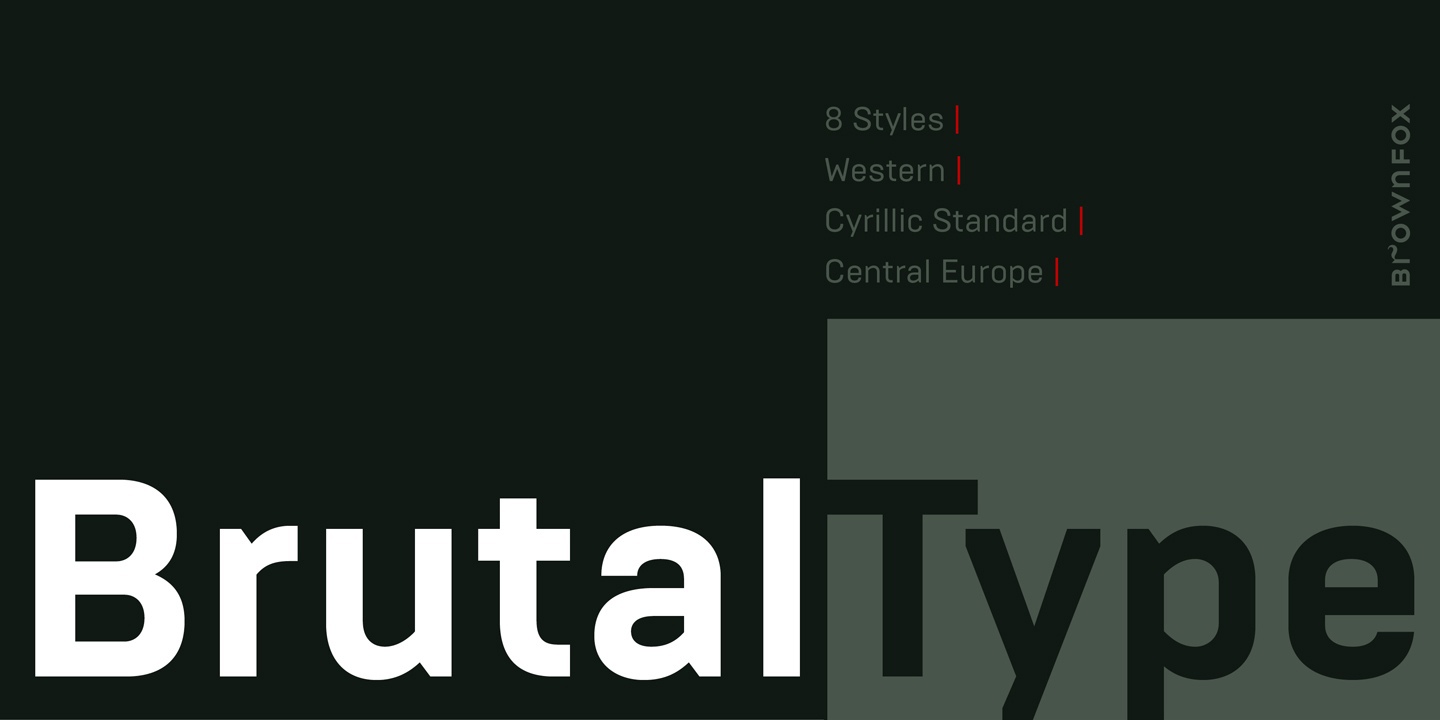
Brutal Type Font
Brutal Type Font is perfect for various design applications including industrial architecture firm branding, concrete construction company logos, brutalist art gallery exhibitions, urban development project materials, raw architectural presentations, hardcore fitness gym signage, industrial design studio identities, concrete jungle lifestyle brands, underground music venue graphics, and uncompromising architectural communications. This commanding typeface excels in projects requiring architectural brutalism and industrial strength that captures the raw power and uncompromising honesty of brutalist design philosophy and concrete architecture.
What makes Brutal Type Font so exciting is its uncompromising embodiment of brutalist architecture and industrial strength through letterforms that suggest raw concrete surfaces and the unforgiving geometry of brutalist construction. The font features harsh angular construction that mirrors concrete forms and structural steel, aggressive proportions that communicate architectural authority and industrial permanence, and distinctive character details that reflect the honest materials and uncompromising functionality that defines brutalist design philosophy. Its distinctive brutalist character and architectural appeal make it perfect for design-focused brands seeking to communicate strength, honesty, and the powerful aesthetic of raw architectural materials and uncompromising design principles.
Brutal Type Font family includes multiple concrete-inspired weights and brutalist variations that enhance its versatility for different architectural applications. Each style maintains the font's signature brutal character while providing options for various industrial design approaches. The family also features brutalist decorative elements, concrete symbols, and architectural ornaments that can be combined with the letterforms to create cohesive industrial architecture design systems.
Whether you're developing architectural brands, industrial communications, or brutalist design projects, Brutal Type Font Free Download provides uncompromising typography that commands respect and celebrates the raw honesty of brutalist architecture and industrial design philosophy. This typeface transforms ordinary communications into powerful architectural statements that promise uncompromising quality and structural integrity. The font's brutal appeal makes it particularly effective for architectural firms, industrial designers, and construction companies targeting audiences who appreciate honest materials and uncompromising design principles.
Brutal Type Font stands out by delivering authentic brutalist energy that feels connected to real architectural traditions rather than artificial industrial theming. Its carefully engineered brutal proportions and architectural details ensure that designs feel genuinely connected to brutalist heritage and concrete construction principles. From architectural firm branding to industrial design communications, this font provides designers with tools to create communications that celebrate brutalist excellence and inspire appreciation for honest architectural design through powerful, concrete-inspired typography that builds lasting impressions with uncompromising structural integrity.